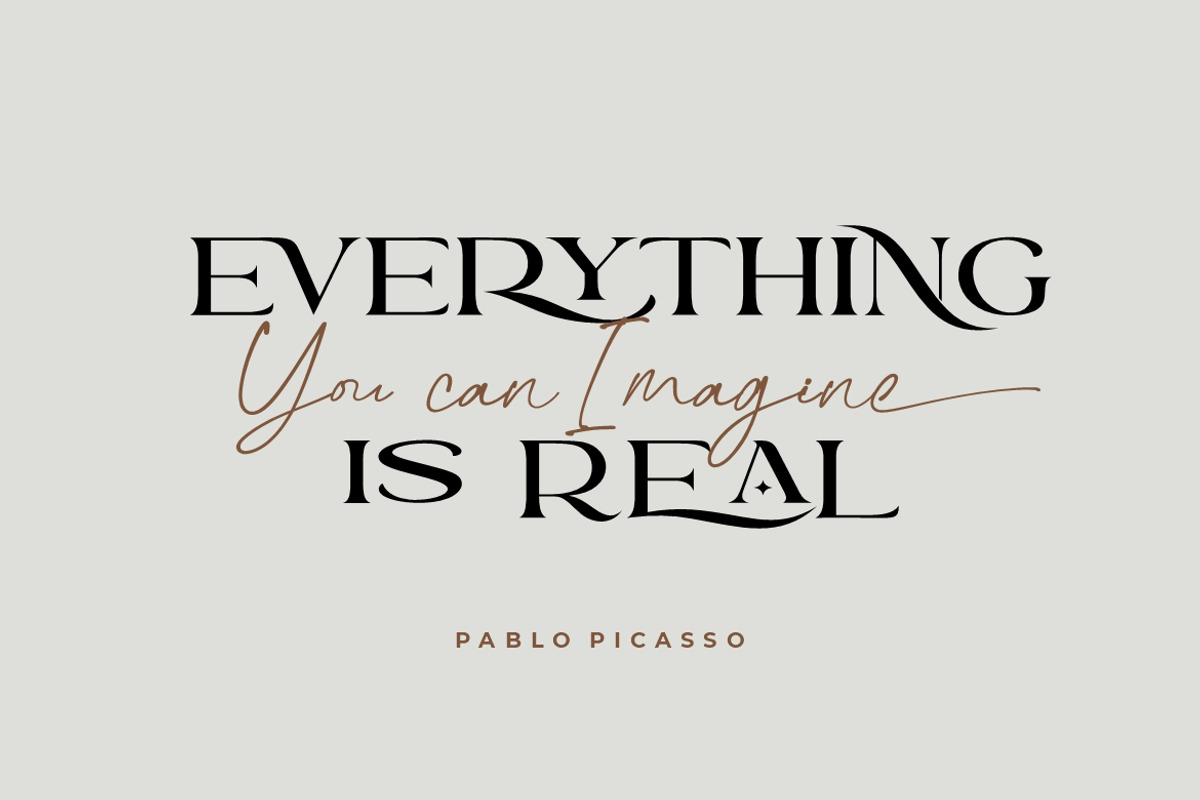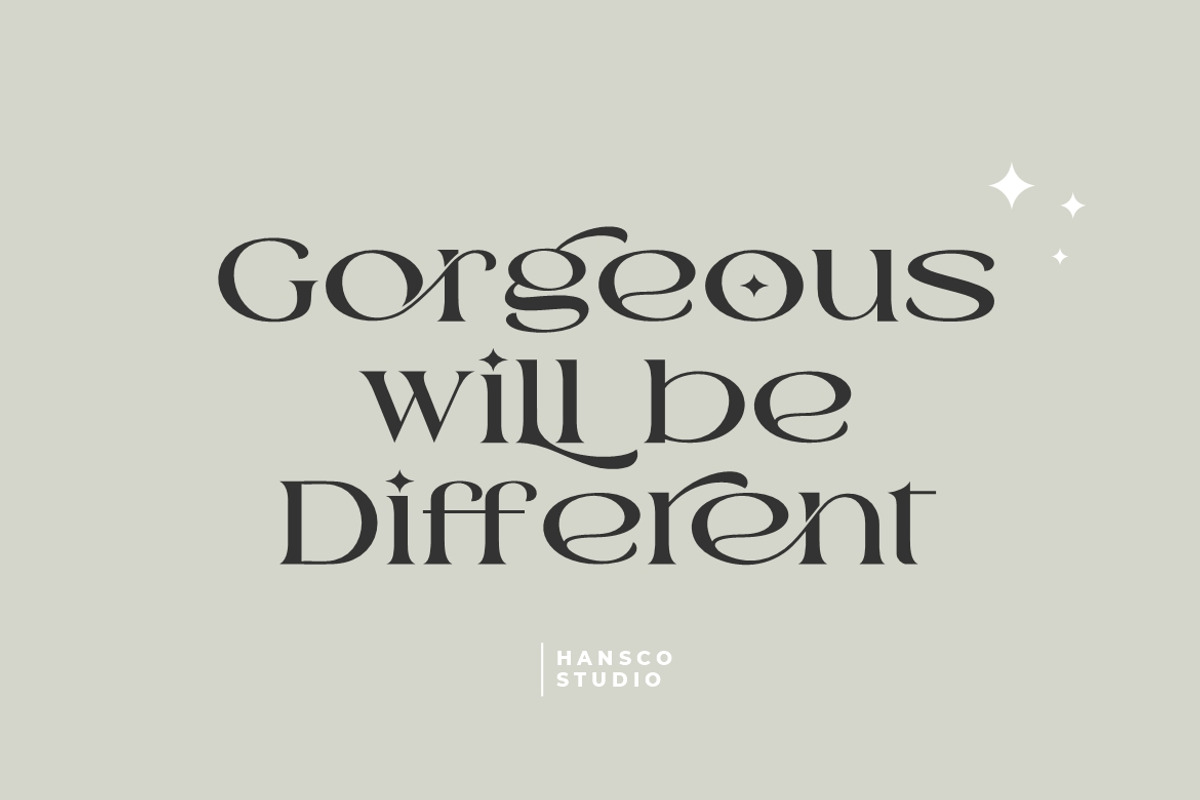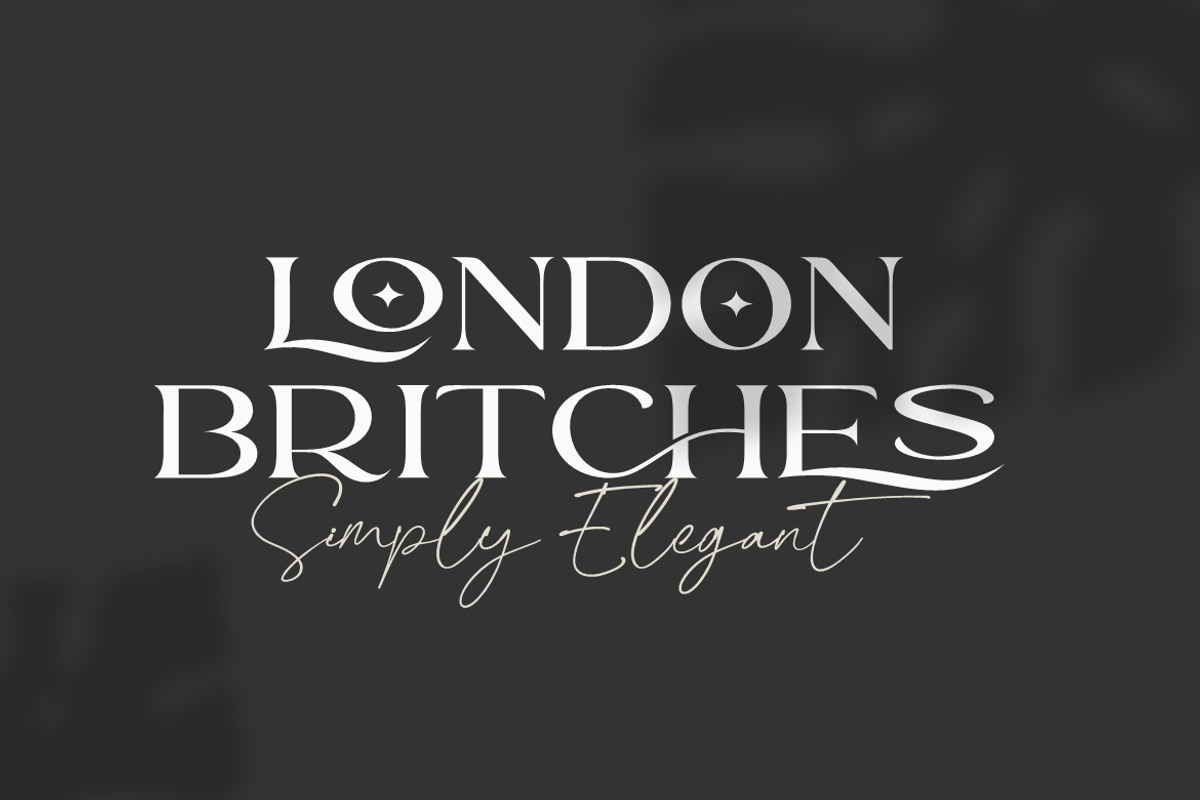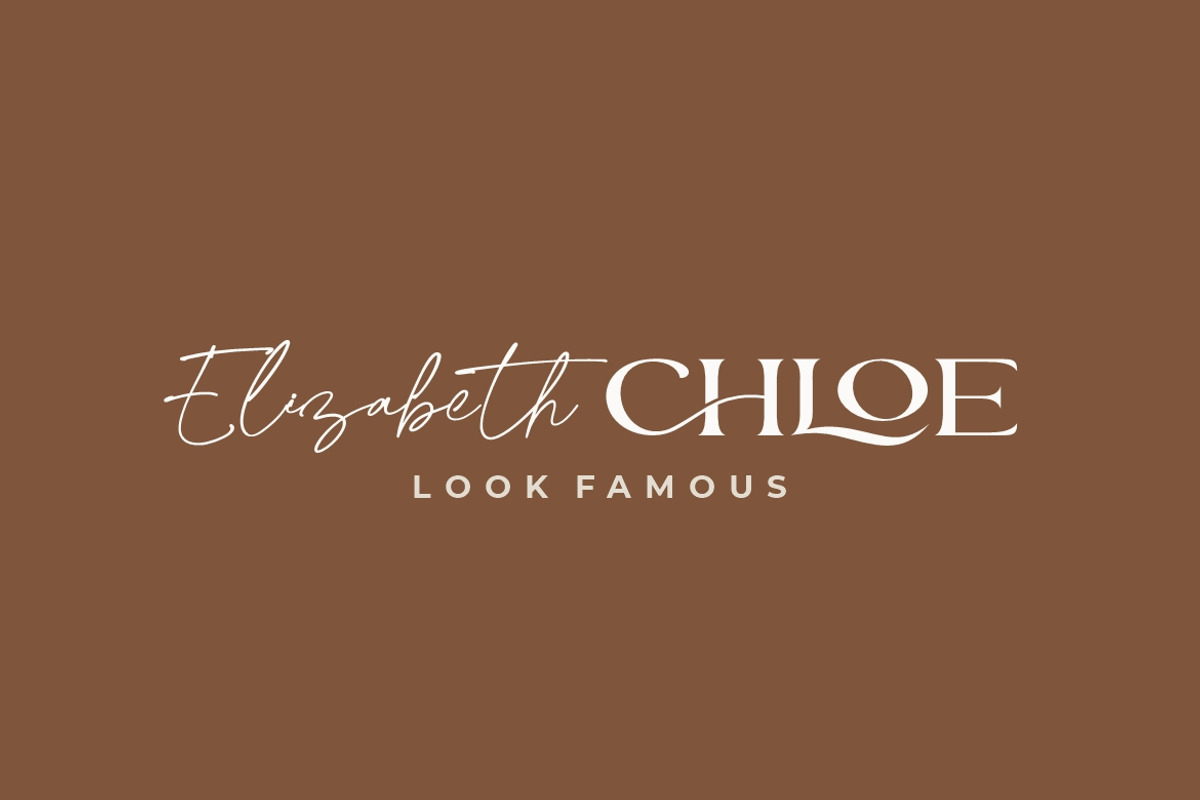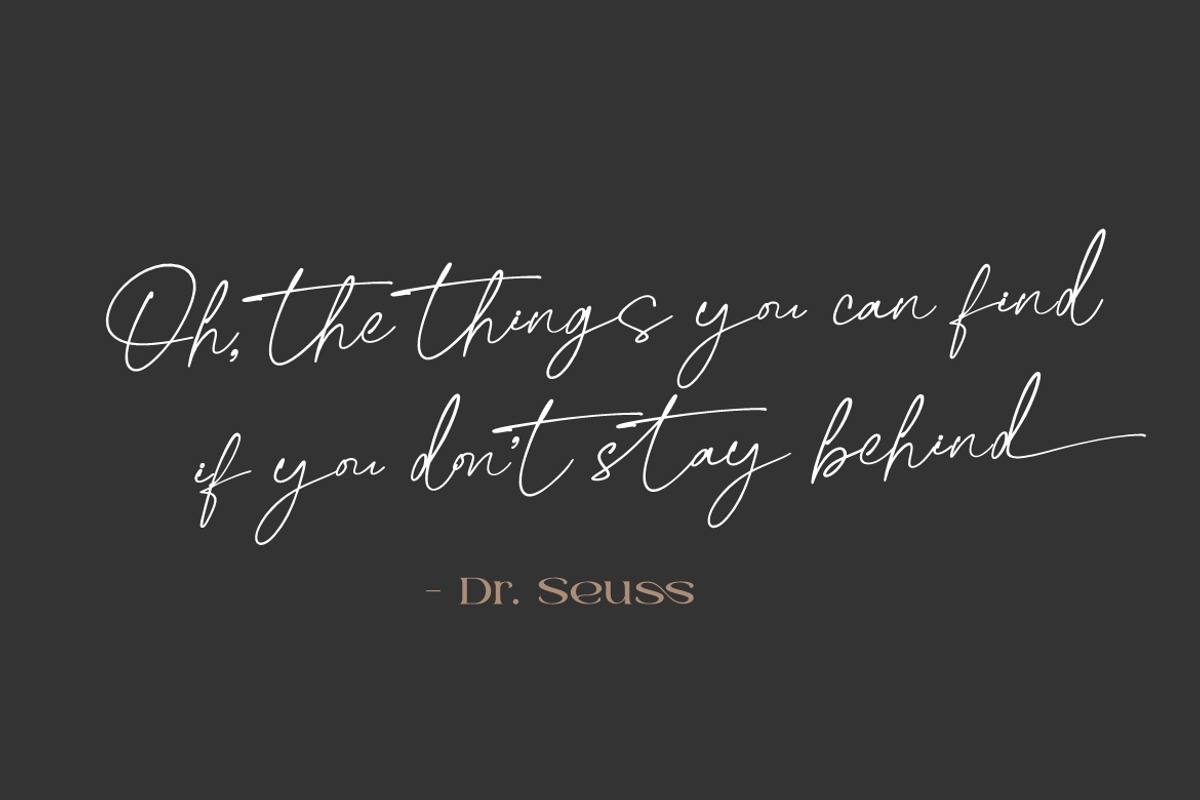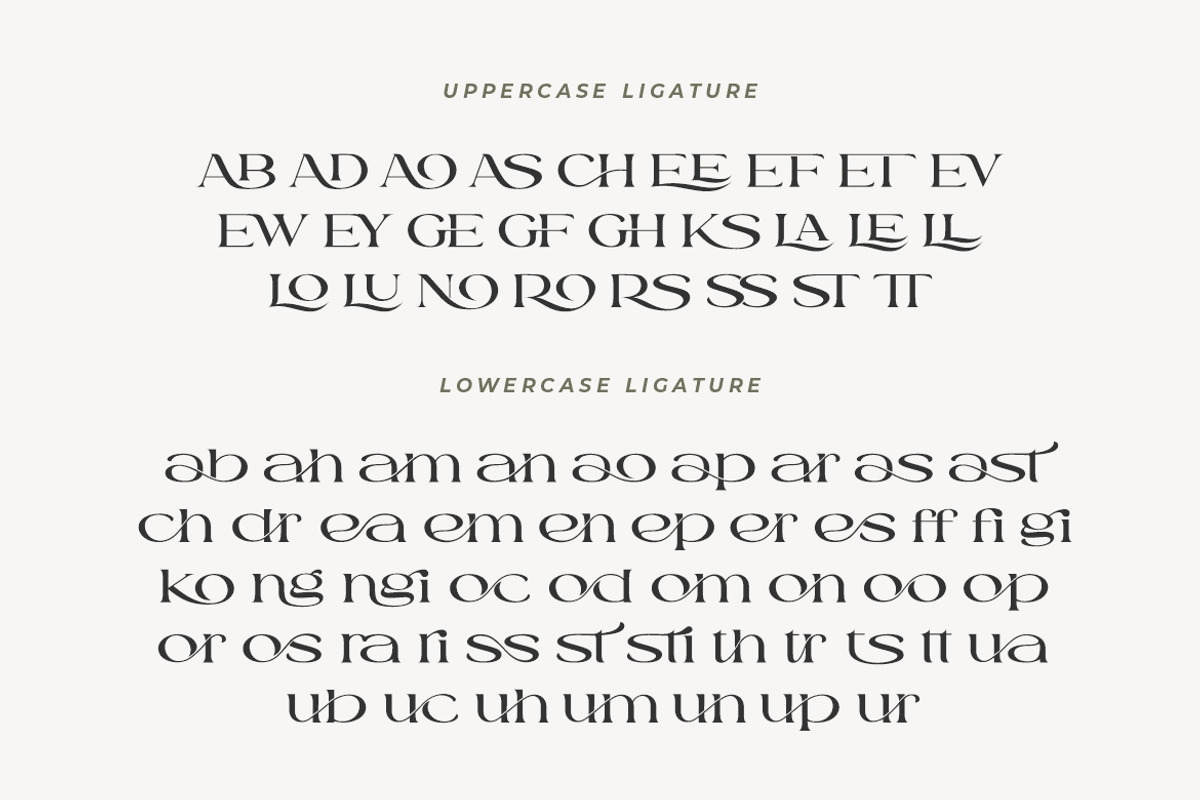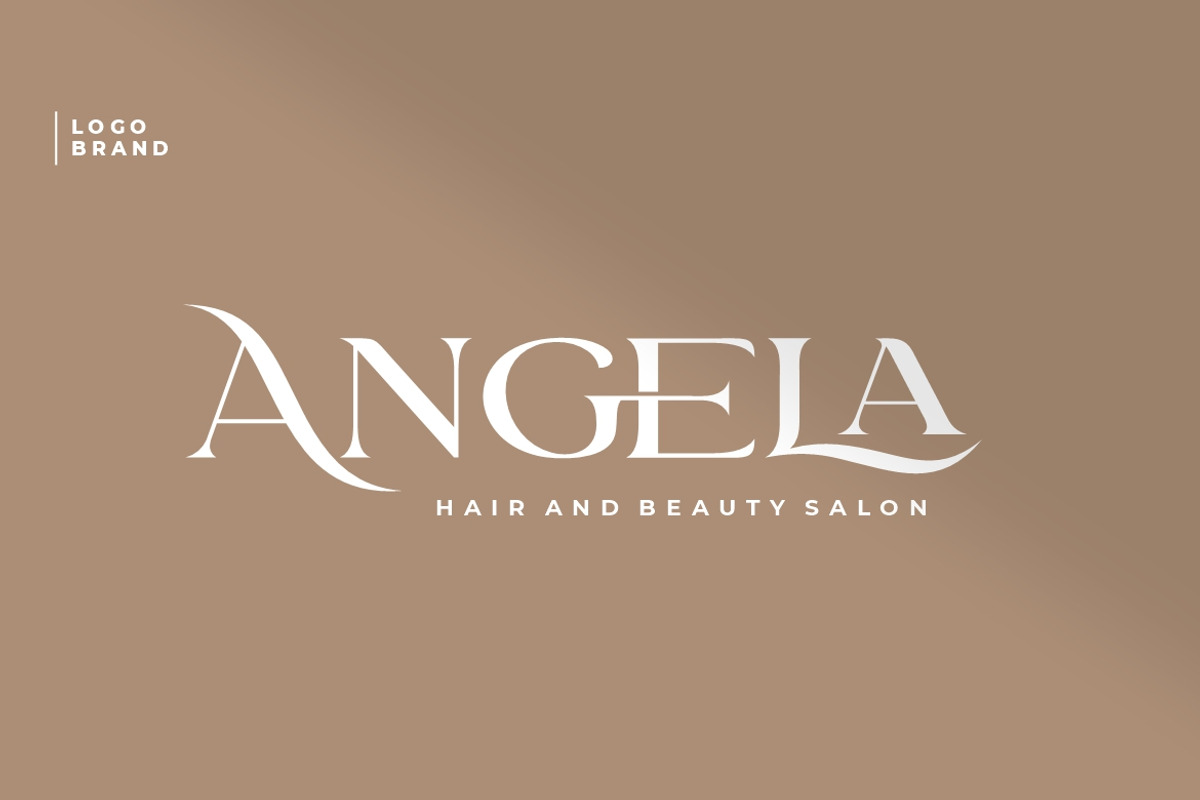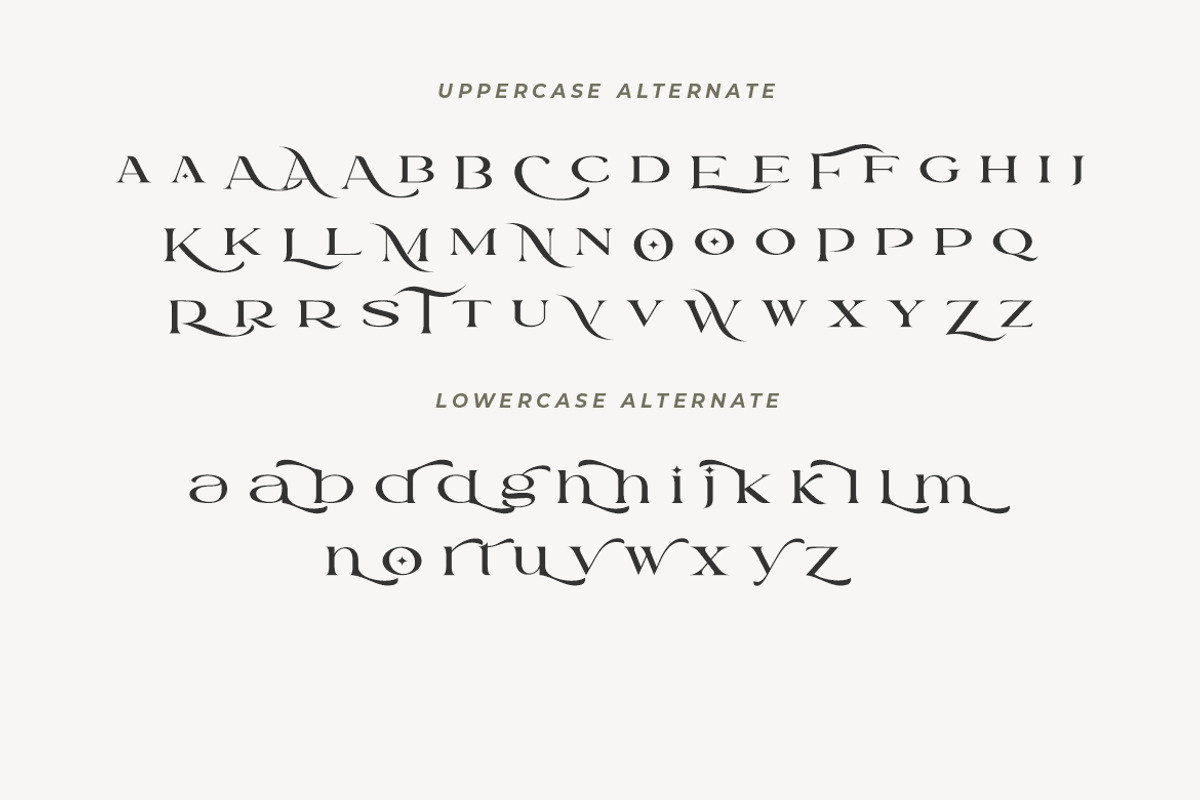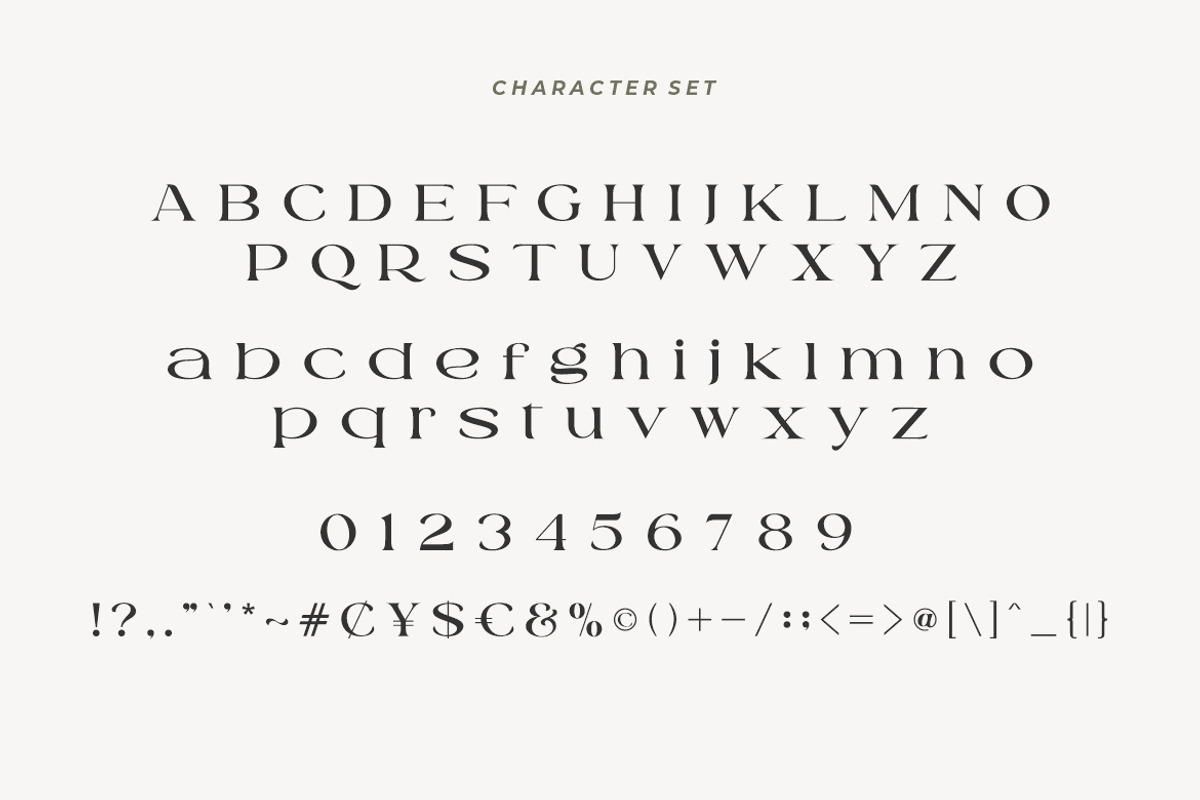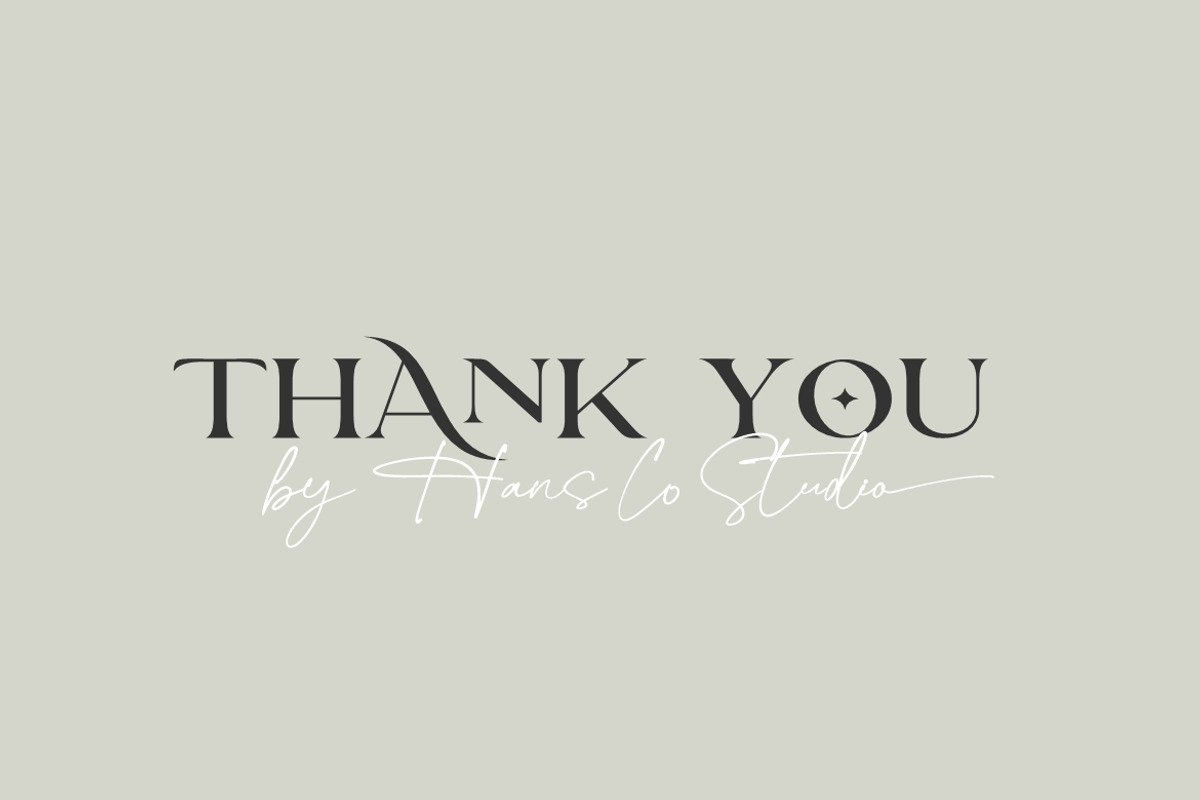
Romla - Elegant and Classy
Romla is an elegant and classy font with a modern touch. This font come with signature ballpoint style that give you a sleek, elegant look for your logos, business card, wedding invitations, quotes, advertisements, and more. Create something beautiful today with this font.
- alternates